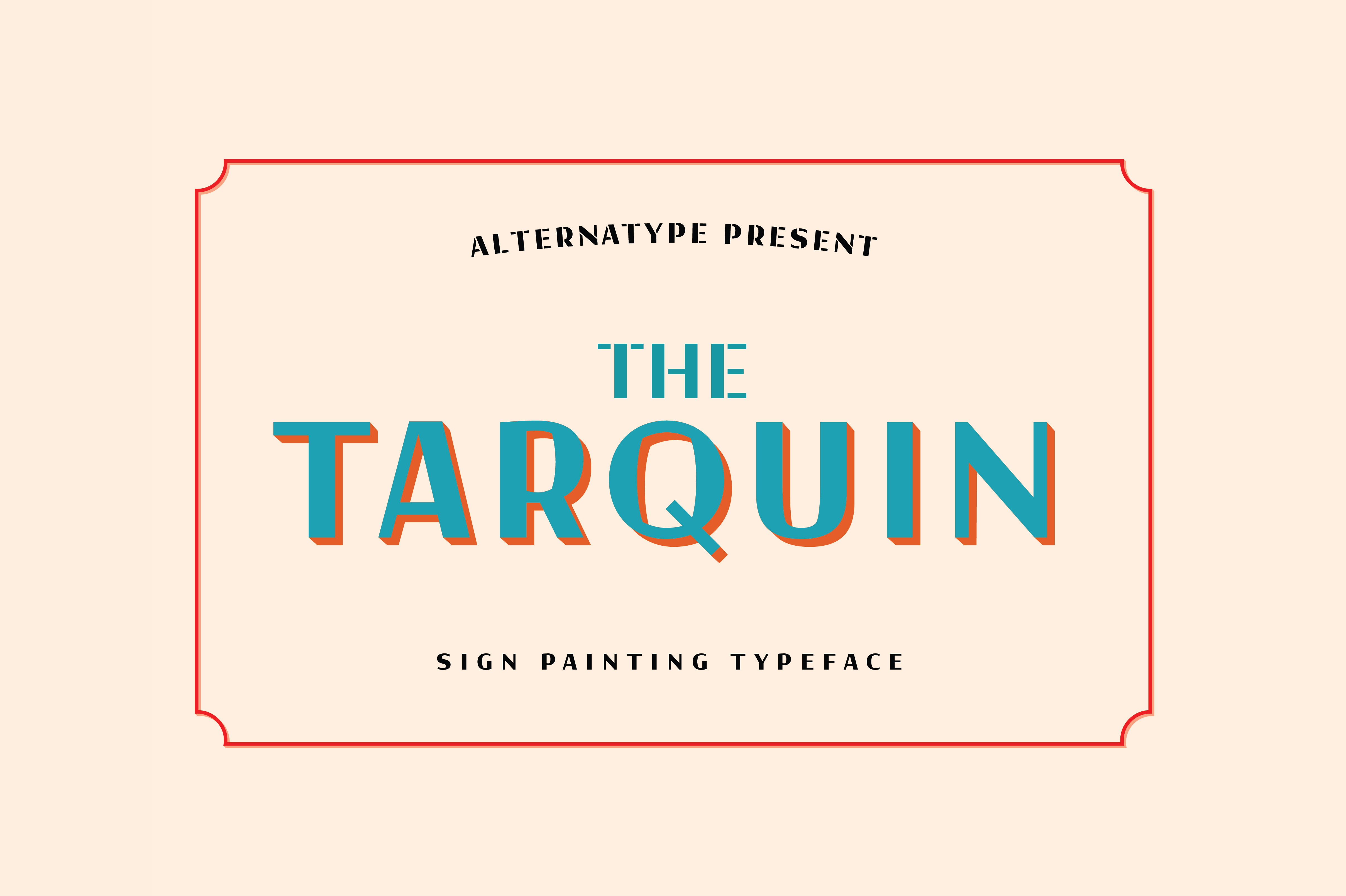
Tarquin Typeface
Tarquin came with 3 beautiful style, REGULAR, STENCIL, and SHADOW designed for display purpose design Crafted beautifully and carefully with hand.
- REGULAR : An all caps sans serif with regular bold style. with a lot of features such as Ligatures and Alternates Char.
- STENCIL : This is the stencil version of the Tarquin. give more vintage and handpainted feel.
SHADOW : and The Shadow style, used with regular style to generate a sign painted font with shadow.
- and all 3 Style have Multilingual Support that cover over 40 Languages.